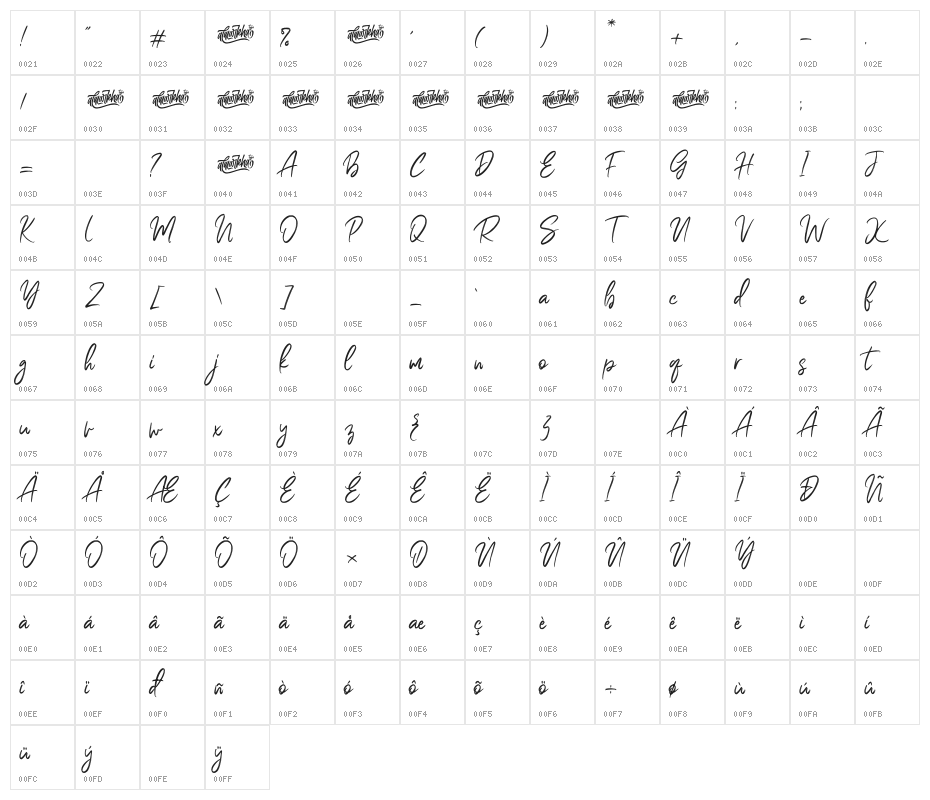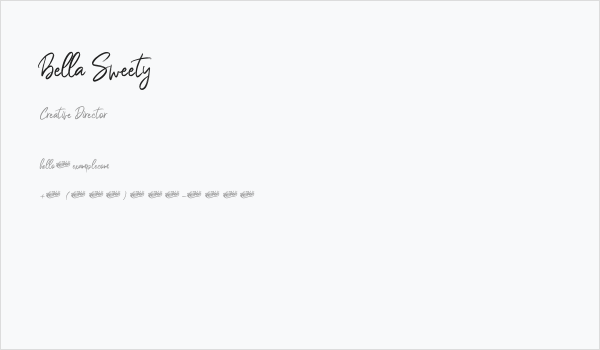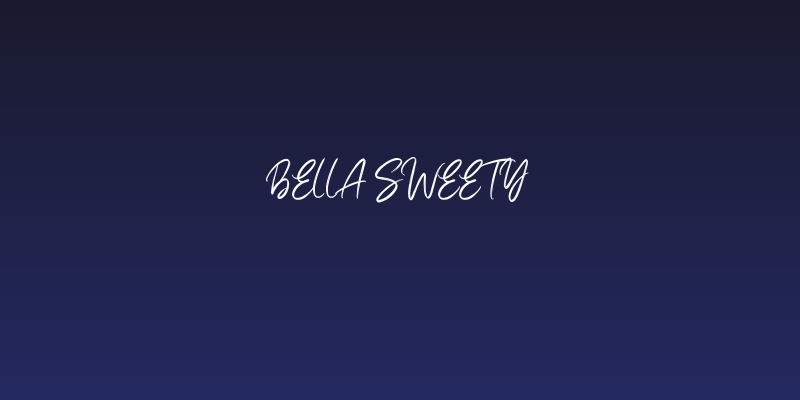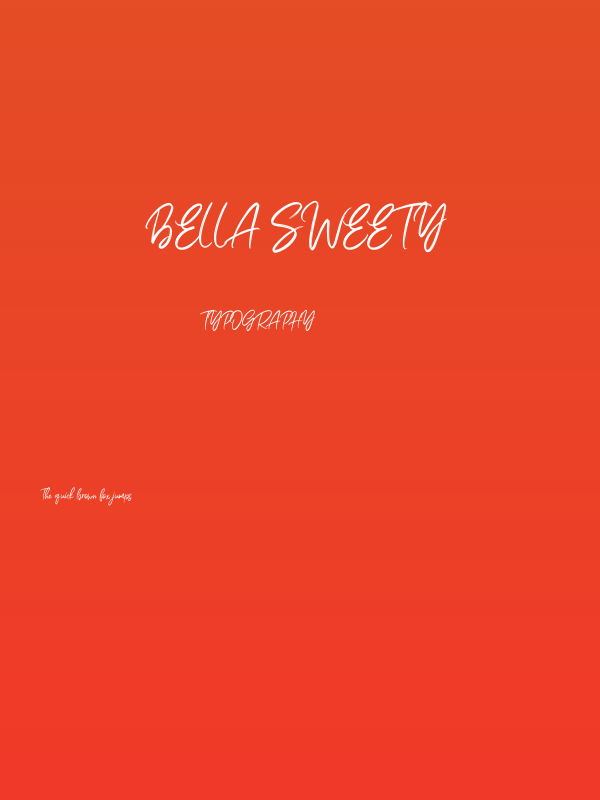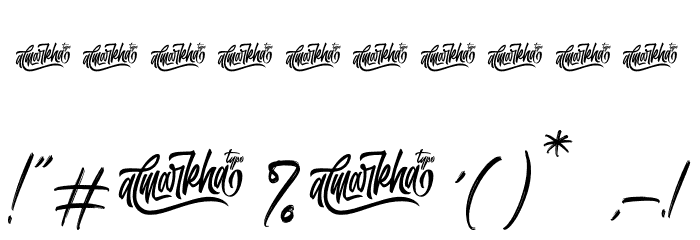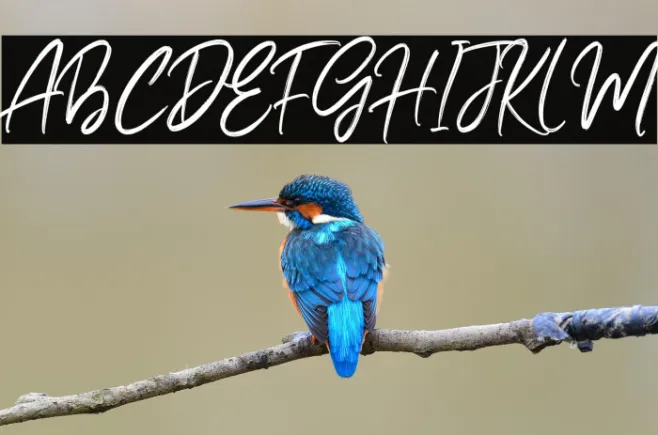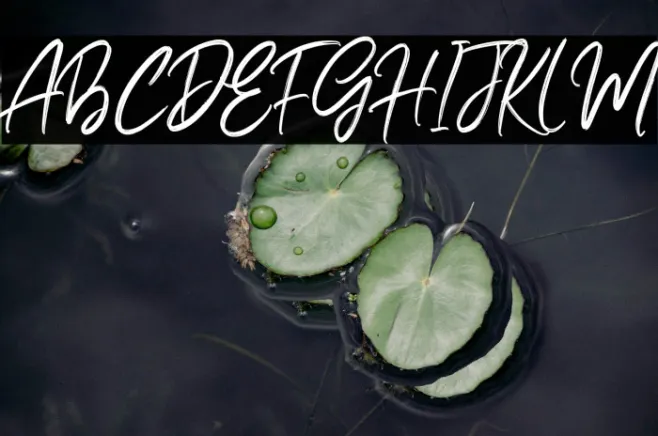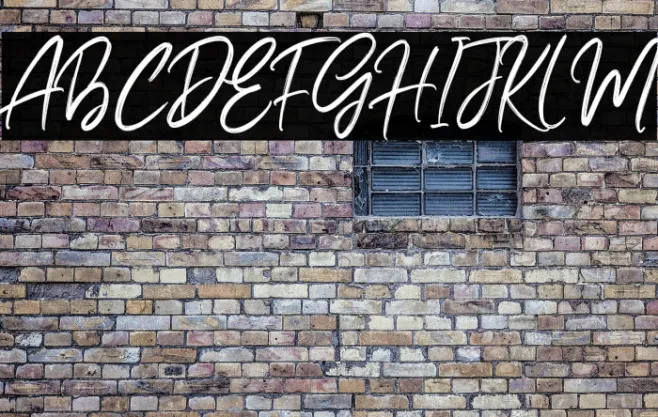
Bella Sweety Font
Bella Sweety Description
This font exudes a lively and dynamic energy, characterized by its flowing, cursive script style. The letters are elegantly connected, with a natural, hand-drawn appearance that adds a personal touch to any design. The strokes vary in thickness, providing a medium contrast that enhances readability while maintaining an artistic flair. The uppercase letters are bold and sweeping, while the lowercase letters are more compact and rounded, creating a harmonious balance. Special characters are uniquely styled, adding to the font's versatility and charm.
| Proposed Projects | Ideal for wedding invitations, greeting cards, logos, and branding projects that require a personal and artistic touch. |